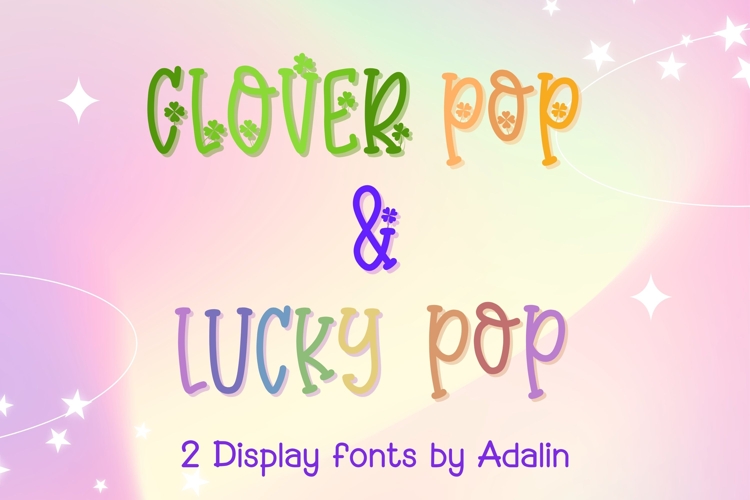
Clover Pop & Lucky Pop - 2 Display Fonts
Clover Pop & Lucky Pop is a cute display font duo that brings a fun, cheerful, and lucky vibe to your designs. This font bundle includes two playful handwritten display fonts with soft rounded shapes and adorable clover decorations that make your text look friendly and eye-catching.
These fonts are perfect for stickers, sublimation, Cricut projects, kids designs, logos, social media, greeting cards, posters, and lucky or St. Patrick themed projects. The characters are easy to read while still looking unique and decorative.